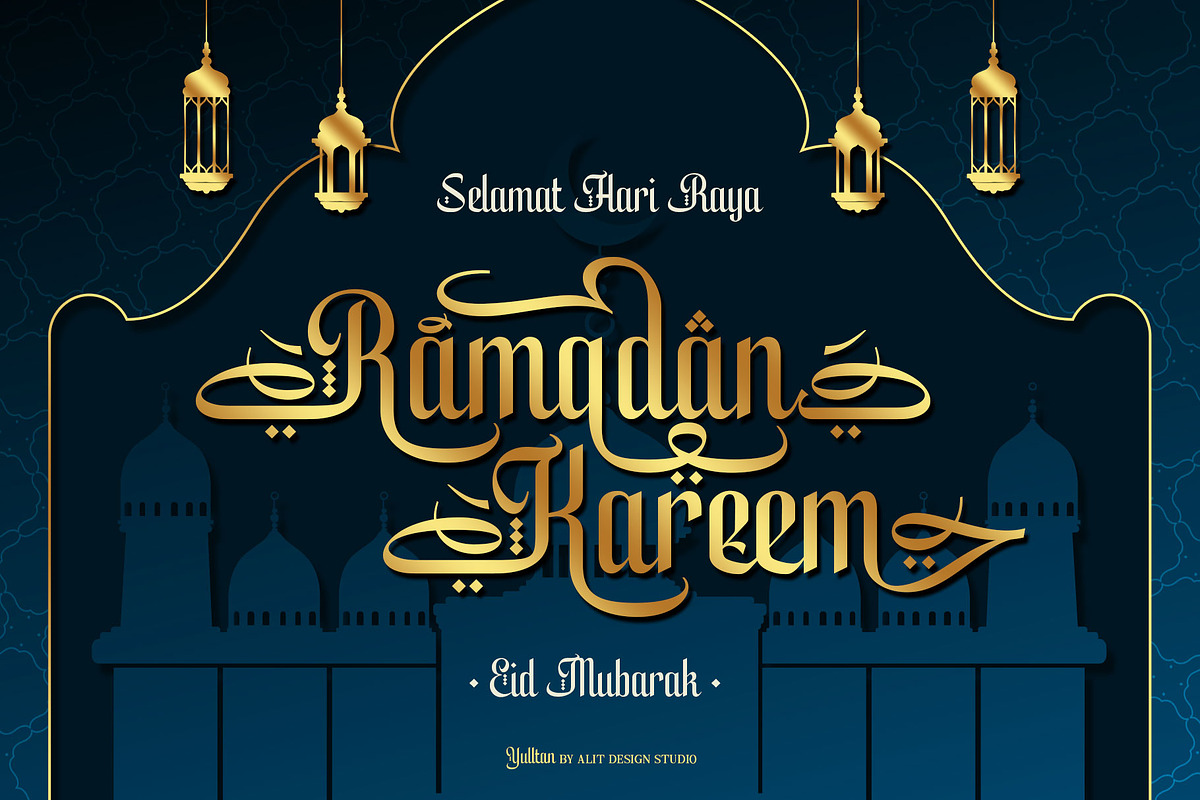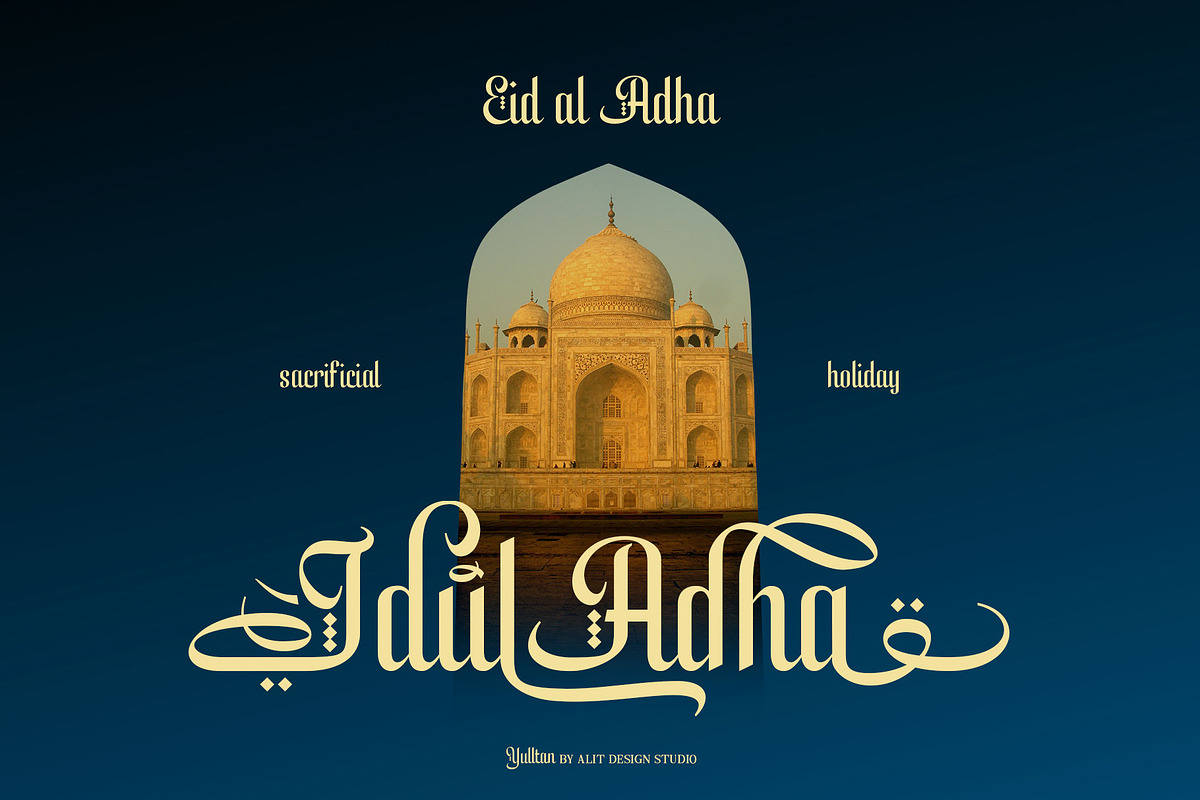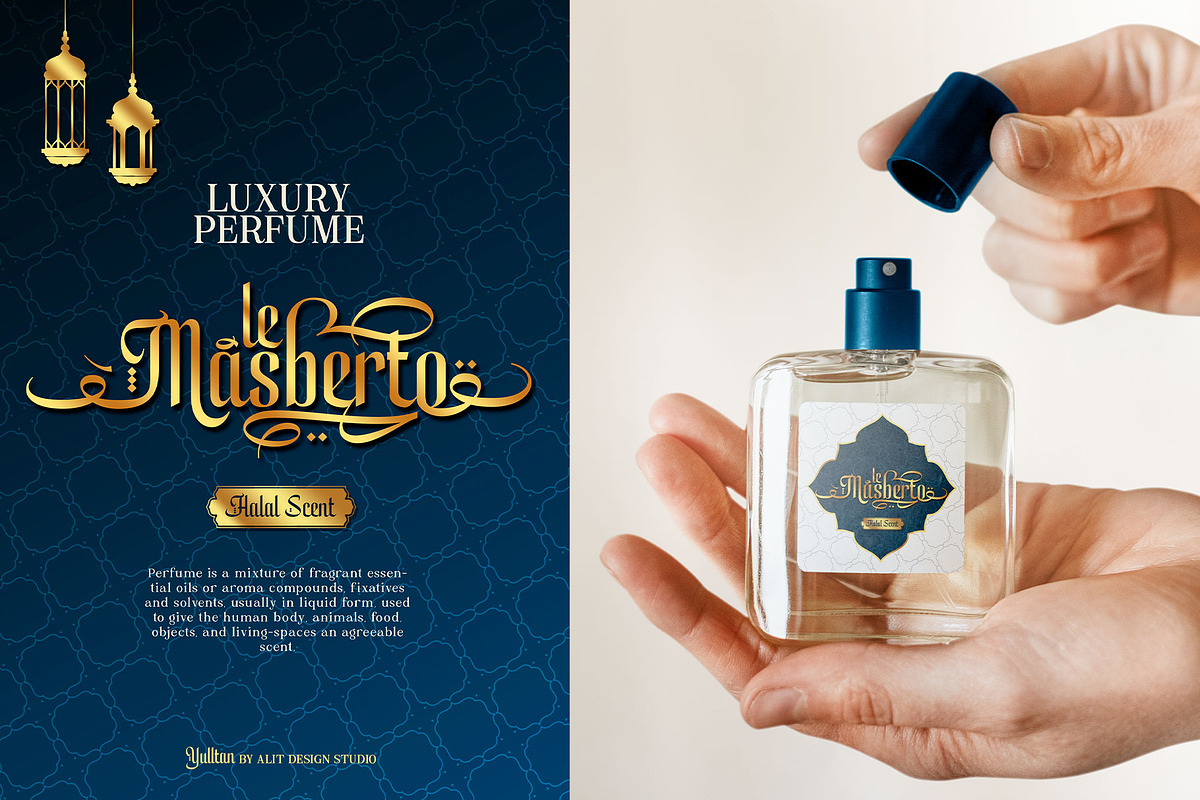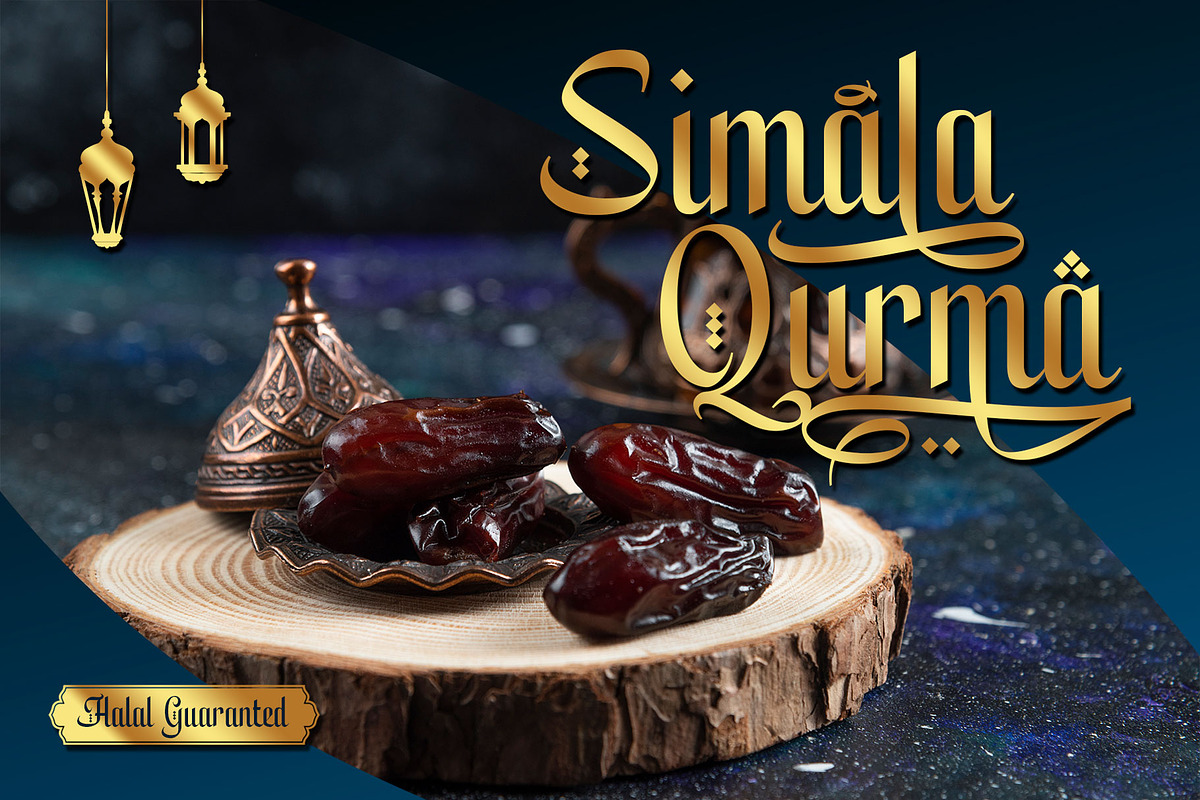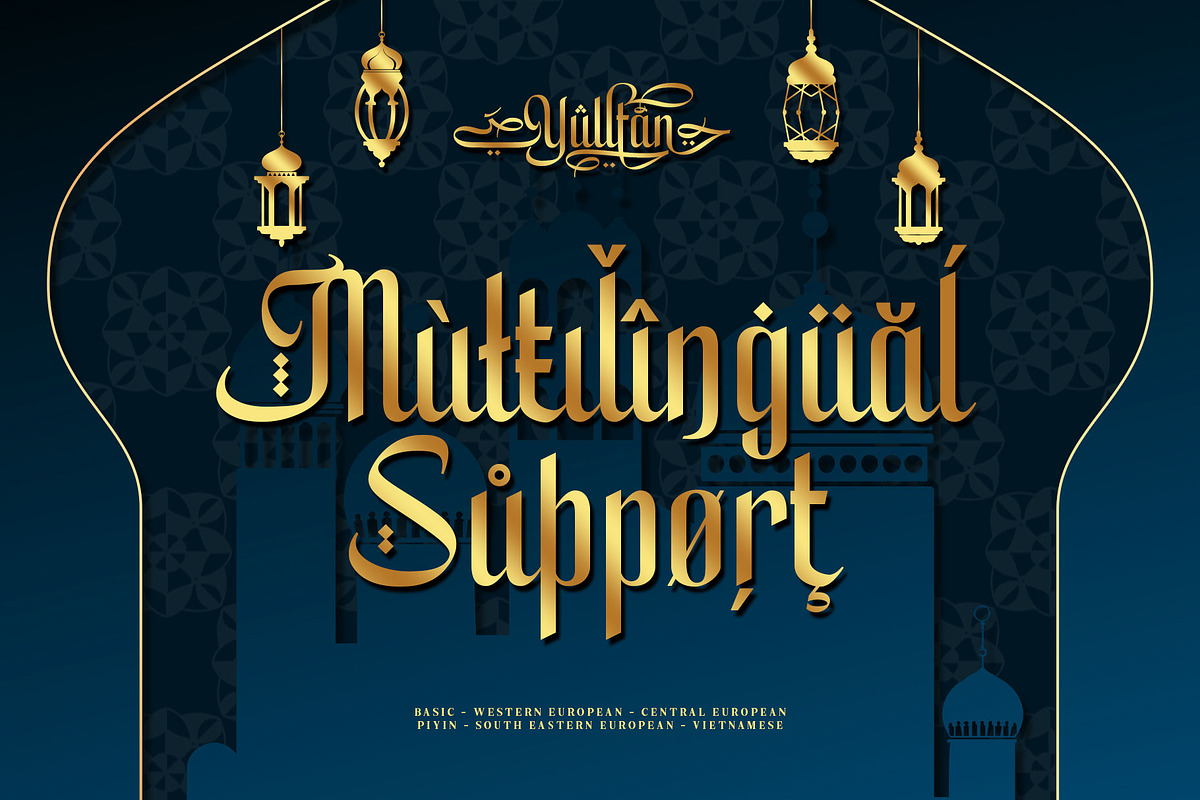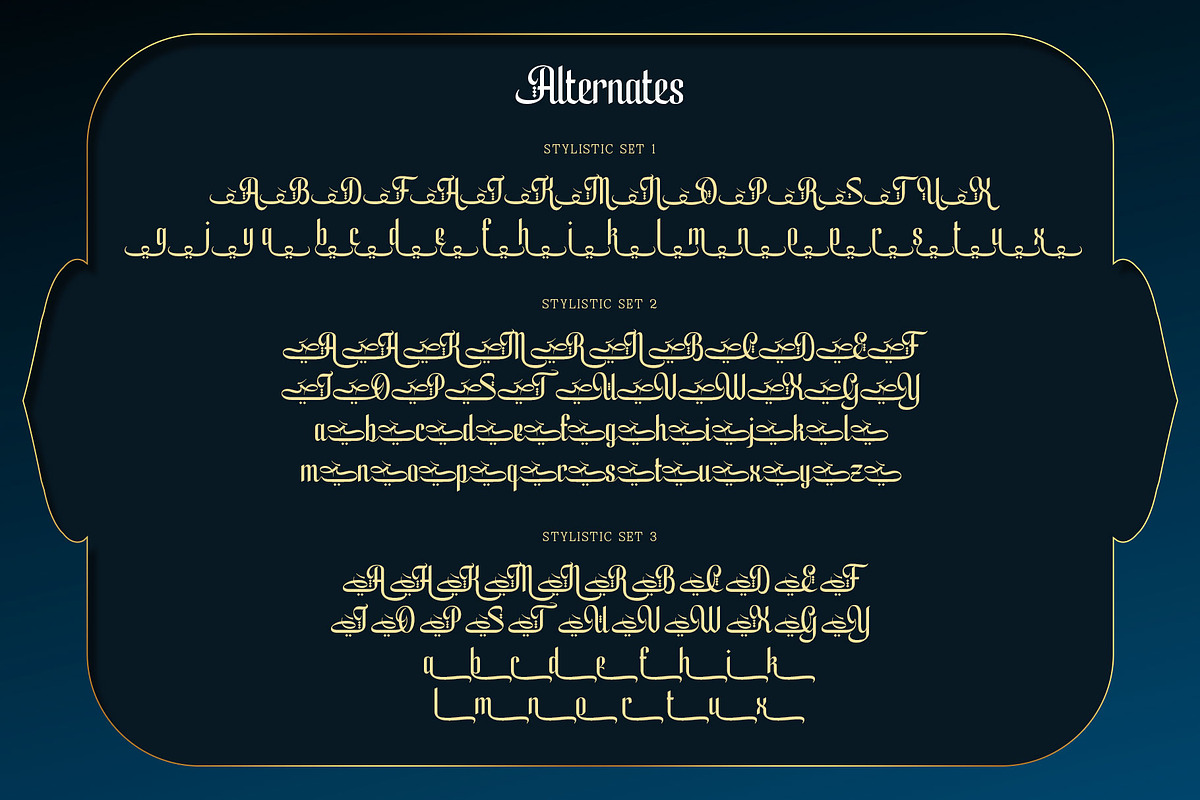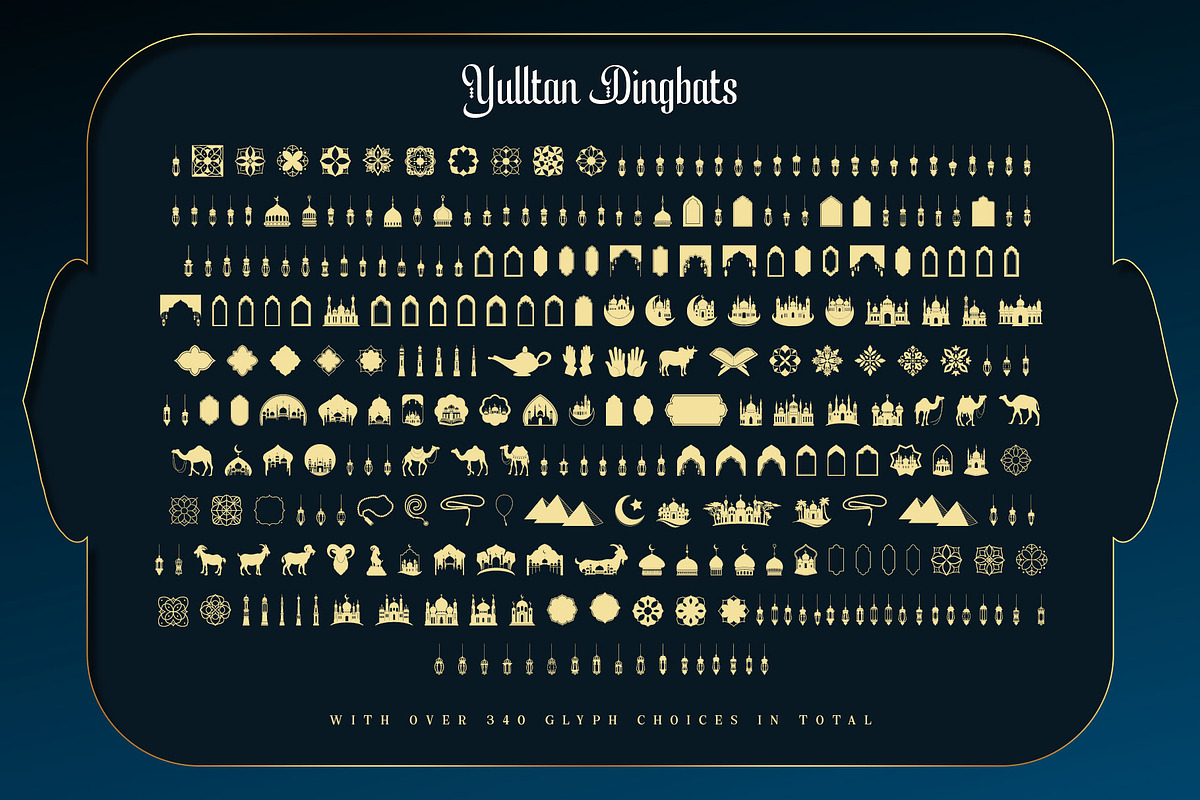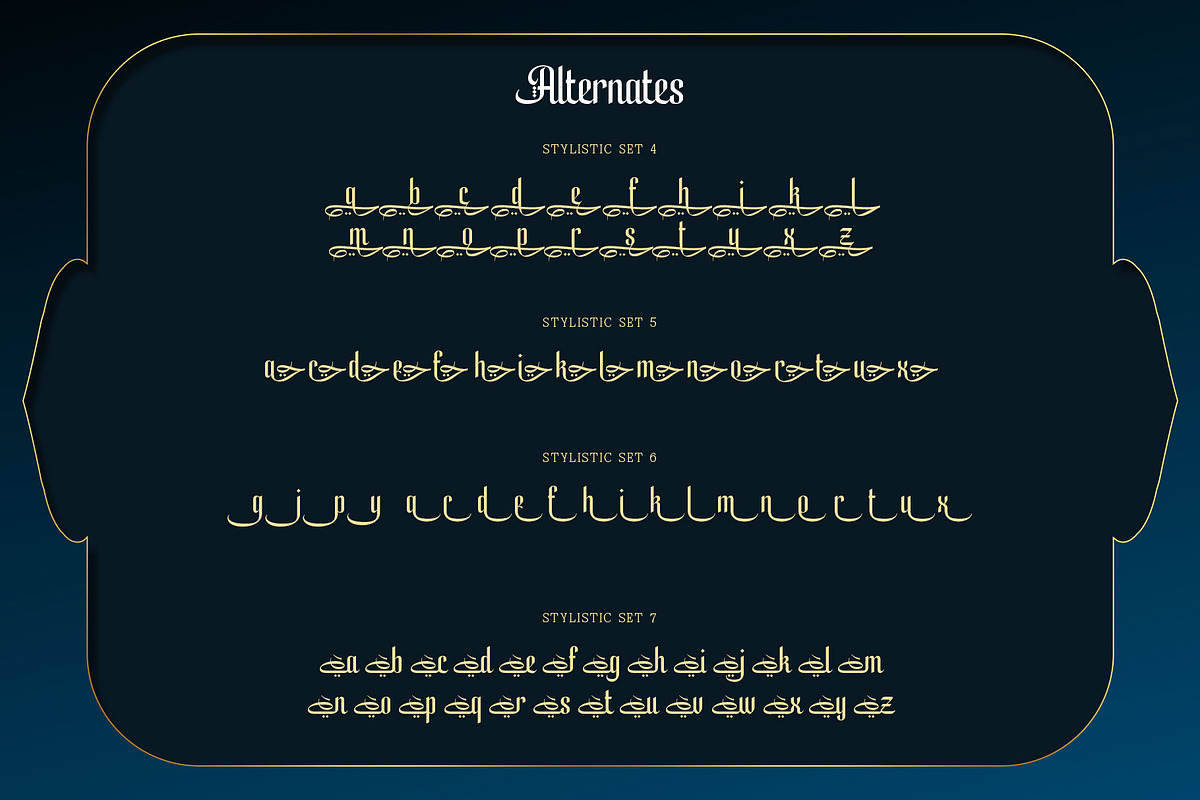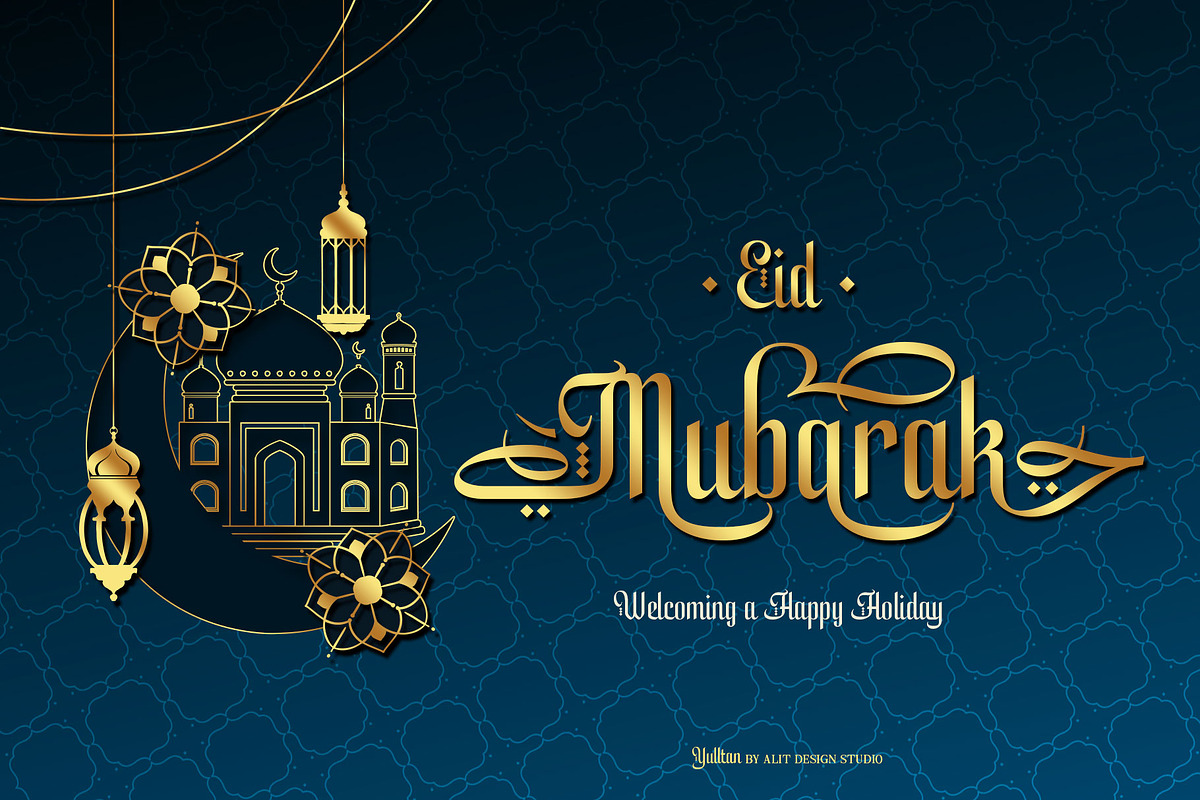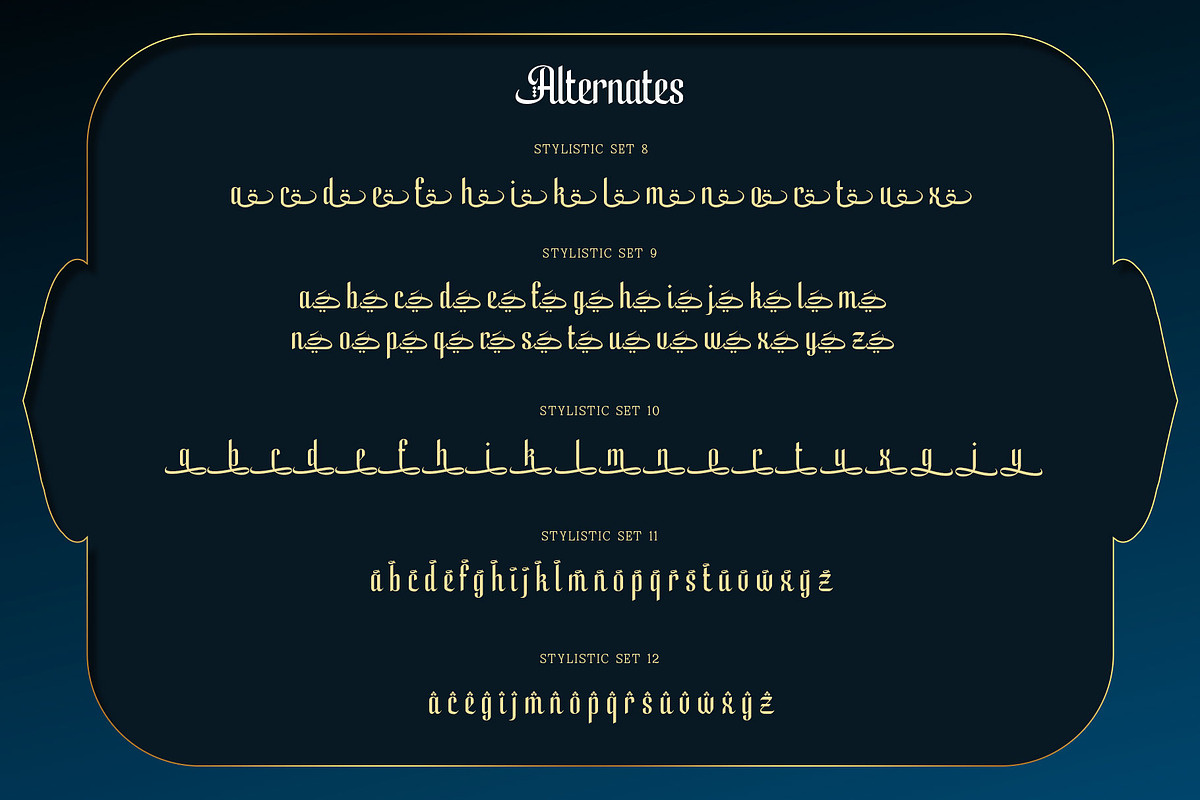
Yulltan Ramadan Typeface
Presenting 🕌Yulltan Ramadan Typeface🕌 by alitdesign.
Yulltan Ramadan Typeface is a beautifully crafted font product with a unique style that is perfect for religious and Islamic designs. This font is specifically designed to cater to the design needs of the Ramadan promotion, and it has a distinctively Islamic and religious vibe that is sure to impress your audience.
One of the standout features of Yulltan Ramadan Typeface is its support for PUA Unicode, which ensures that users can easily access all of the font's characters without any issues. The font also supports multilingual characters, making it perfect for use in various languages.
With 869 glyphs characters, Yulltan Ramadan Typeface offers a wide range of characters, allowing users to create stunning designs with various styles and options. The font's characters are well-crafted and easily readable, making it an ideal choice for any design that requires an Arabic font.
As a bonus, Yulltan Ramadan Typeface comes with Yulltan Dingbats font, which includes a collection of beautifully crafted Islamic symbols and ornaments. These extra glyphs can be used to add a unique and personal touch to your designs, making them stand out even more.
In summary, Yulltan Ramadan Typeface is a versatile and elegant font product that is perfect for Ramadan promotions and other religious and Islamic design projects. With PUA Unicode support, multilingual characters, 869 glyphs characters, and a bonus Yulltan Dingbats font, this product is sure to meet all of your design needs.
Language Support : Latin, Basic, Western European, Central European, South European,Vietnamese.